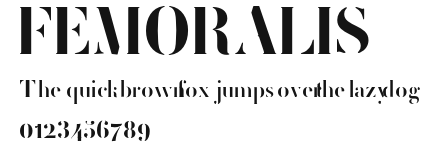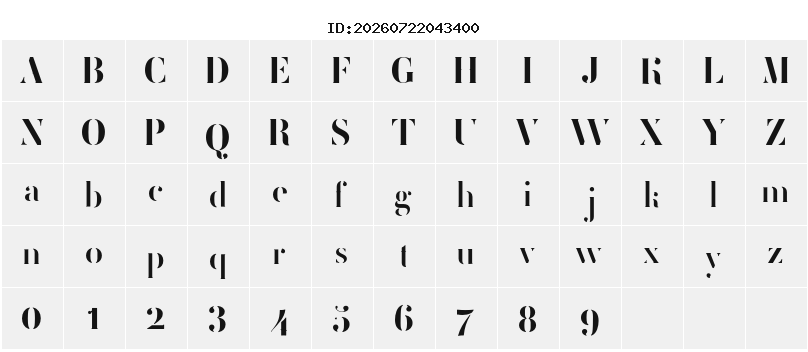
About FEMORALIS.otf
FEMORALIS.otf is a modern, elegant sans-serif font designed for ultimate readability and visual harmony. Perfect for branding, headlines, web design, and print materials.